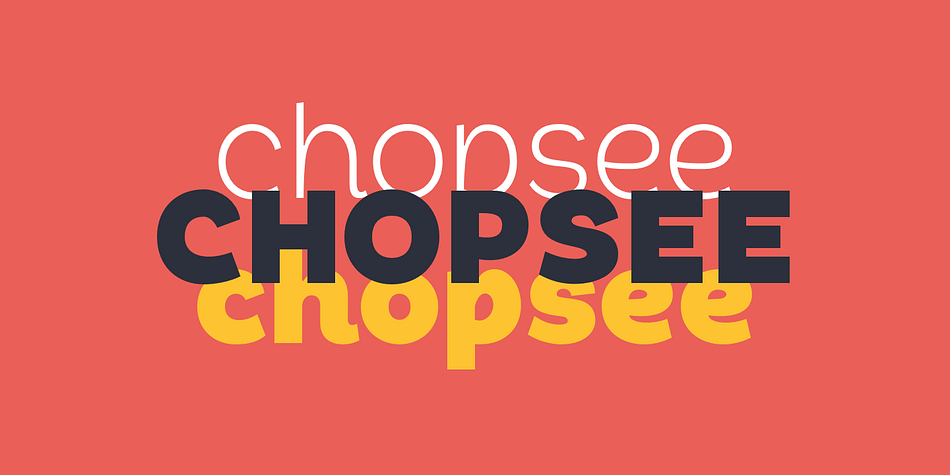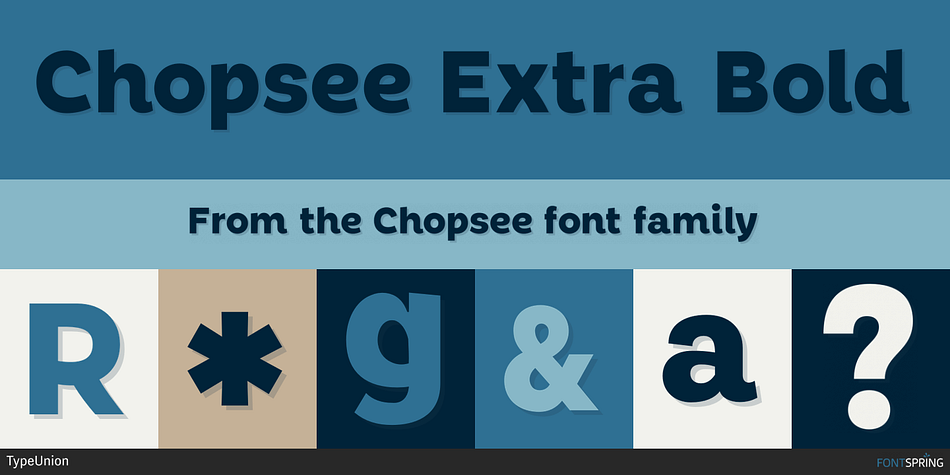
Chopsee Extra Bold
Designed by Dan Jones, Chopsee is a sans serif font family. This typeface has sixteen styles and was published by TypeUnion.
Chopsee is a fun, fluid, versatile font family of 8 weights and matching italics designed by Dan Jones for TypeUnion.
The font aims to encompass movement and fluidity with its accentuated curves and terminals. The raised x-height creates more synergy between the lowercase and uppercase characters thus enhancing the visual appearance.
The family of 8 weights & italics means you have plenty of usage options whether digital, branding or print - Chopsee black is perfect for that new brand idea you have, while the lighter weights provide a subtle support to clean layouts whether it’s call out text on a website or in print applications such as posters or magazine layouts.